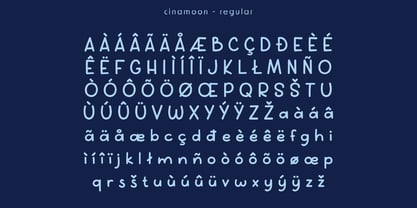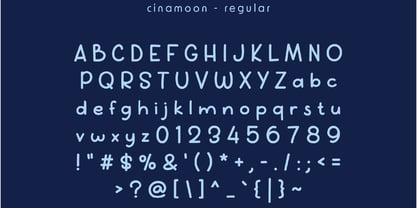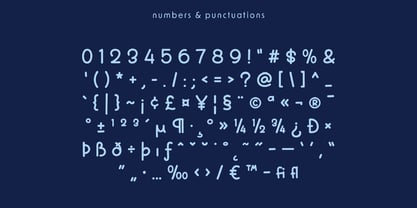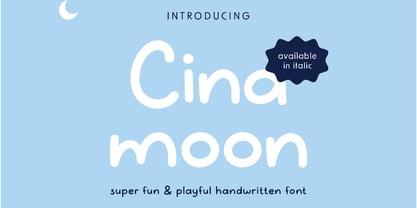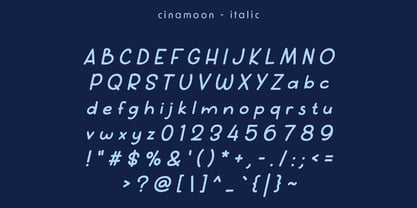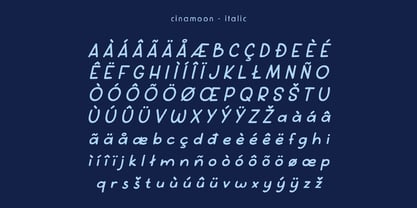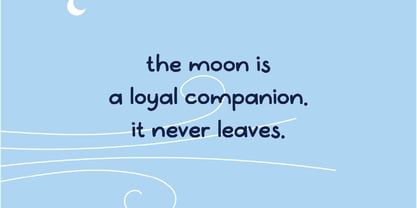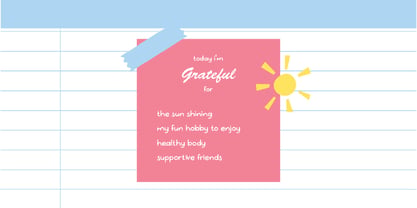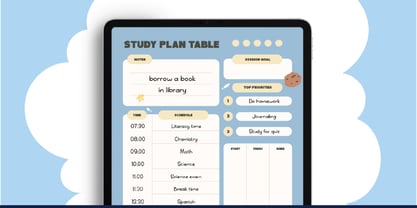
Cinamoon
by Pikgura Type
Cinamoon is a delightful handwritten font that radiates warmth and friendliness. With its rounded forms and playful rhythm, this typeface is crafted to evoke a sense of joy and innocence—perfect for designs aimed at children and families.
Whether you're creating packaging for toys, illustrations for storybooks, apparel graphics, or festive invitations, Cinamoon adds a personal and cheerful touch. Each character is lovingly drawn to maintain legibility while expressing a handcrafted charm.
Cinamoon is more than just a font—it’s a celebration of creativity and warmth. Ideal for designers who want their work to feel approachable, expressive, and full of character.
Designers: Acmarsita Caerola
Foundry: Pikgura Type